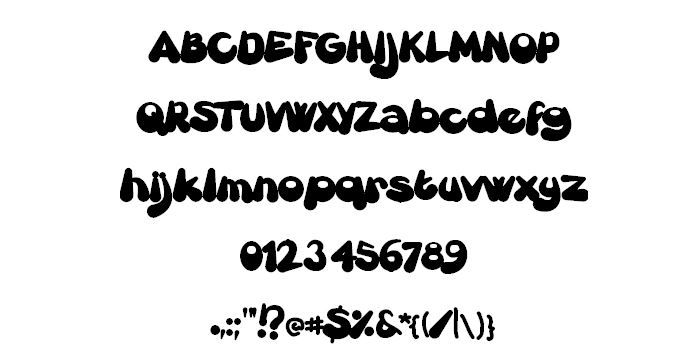
Let’s talk about the Gretoon Font, created by the famous font designer Måns Grebäck back in 2011. This font comes in 2 different weights and offers a total of 366 glyphs. Fun fact: 1000 units of this font equals 1 em. Don’t miss out on learning more about this unique comic typeface! Why not explore and discover the world of font design with us?
When you pair this typeface with the styling of the apple chancery font. It will be a wonderful choice for both the on-screen and printing work. This typeface does not contain the monospaced pitch that makes this typeface useful in any of the designs you want and this will add a clean and superb look to the design.
This typeface will be the best choice for designing cartoon characters and also can be used in the designing of some of the best fancy typefaces that will attract children. This is the comic typeface that would be the best choice for designing comic covers.